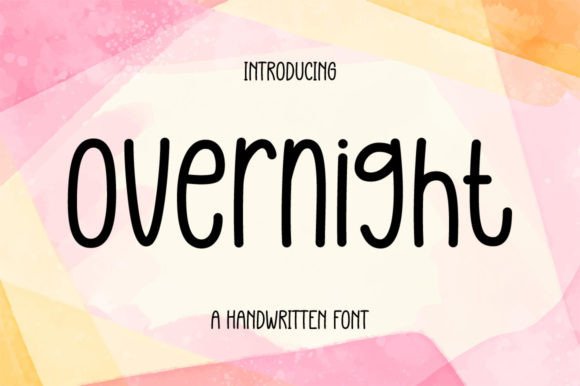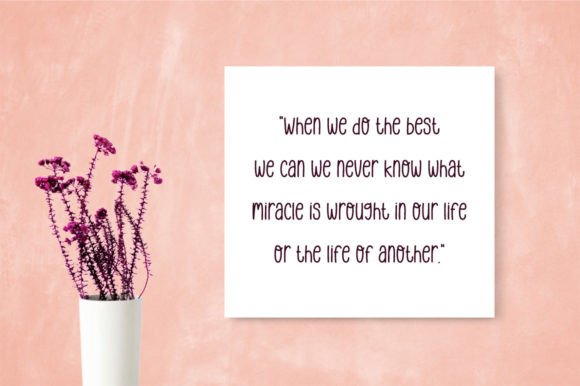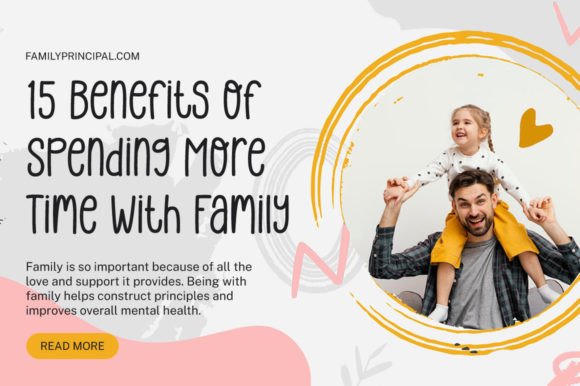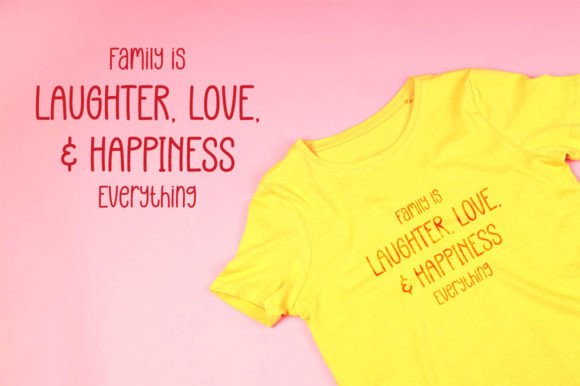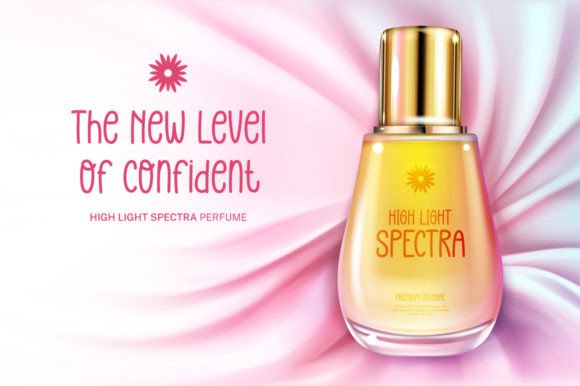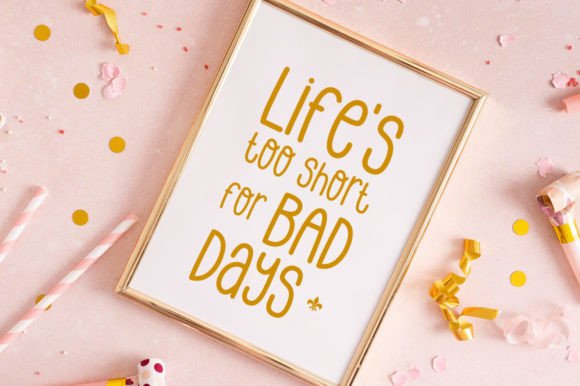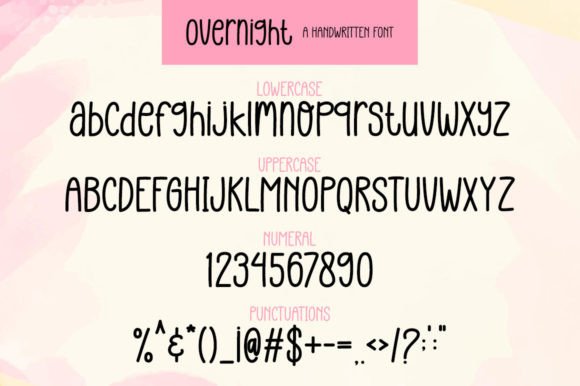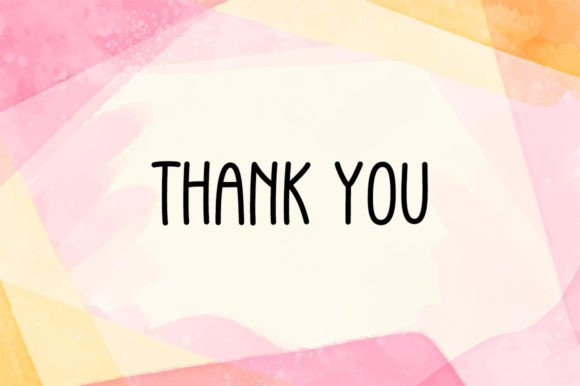
Overnight Font
About Overnight Handwritten Font
Overnight Handwritten Font is a cute and casual script typeface designed to add warmth, joy, and romantic personality to your projects. With dainty curves and playful strokes, it captures the charm of hand-lettering while remaining versatile for both personal and professional design needs. Because of its approachable style, Overnight Handwritten Font is an excellent choice for wedding invitations, greeting cards, quotes, and branding.
A Cute Typeface with Romantic Charm
Handwritten fonts are loved for their ability to express emotion, and Overnight Handwritten Font captures this beautifully. Its flowing letters create a personal, heartfelt style, making it ideal for projects that require a touch of romance. In addition, its casual yet neat design ensures readability across different uses.
Perfect Typeface for Invitations and Cards
Overnight Handwritten Font is especially effective for event stationery and personal projects. For example, it can make wedding invitations, save-the-date cards, and thank-you notes more meaningful. Moreover, it shines on seasonal greeting cards, birthday designs, and even handwritten-style menus, giving each project authenticity and charm.
A Script Typeface for Quotes and Branding
Designers and creatives will find Overnight HandwrittenFont useful for branding projects and promotional designs. It works beautifully for logos, product packaging, and boutique branding. Furthermore, it adds personality to inspirational quotes, social media graphics, and blog headers. When combined with minimalist sans serif fonts, it creates a balanced and stylish layout.
Flexible Across Print and Digital Media
Another strength of Overnight HandwrittenFont is its adaptability across mediums. In print, it enhances posters, flyers, and merchandise designs. Digitally, it integrates seamlessly into websites, online ads, and e-commerce banners. Since it scales cleanly across different sizes, it remains effective for small labels as well as large-format displays.